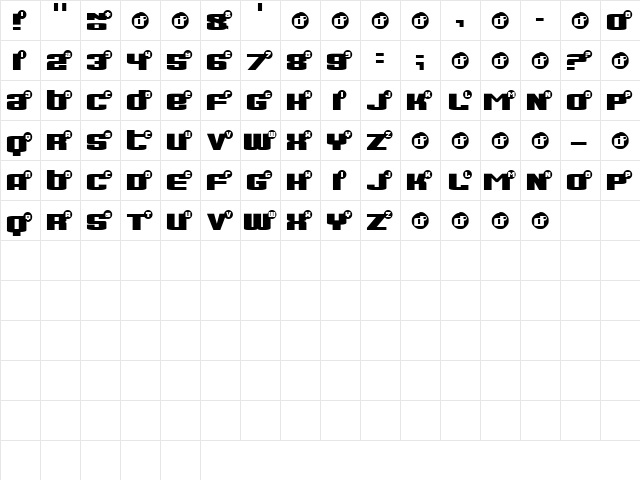
UnTrue Regular
Design Context for UnTrue Typeface
UnTrue is a composed and adaptable typeface that performs quietly and consistently across a wide range of design contexts.